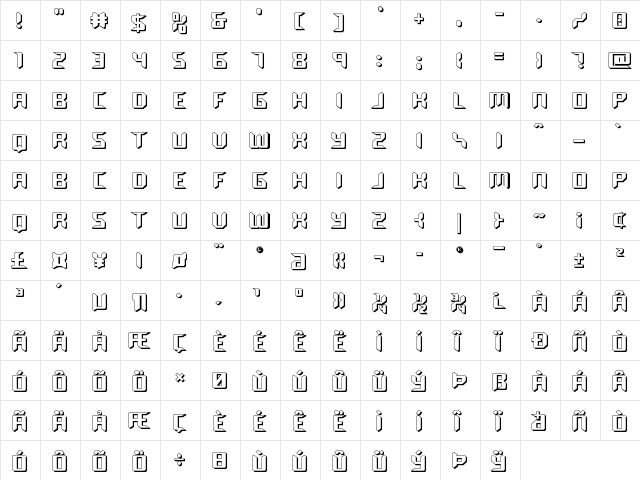
Robo-Clone Straight 3D Regular
Robo-Clone Straight 3D is a composed and adaptable typeface that performs quietly and consistently across a wide range of design contexts.